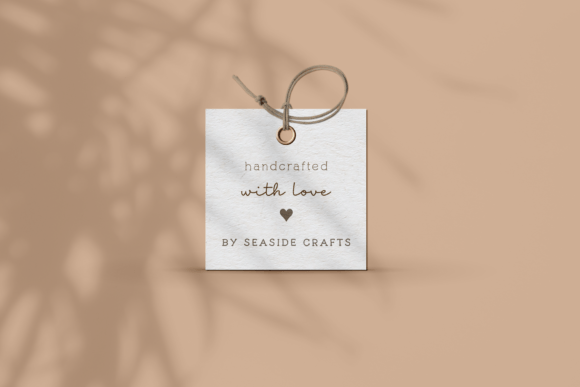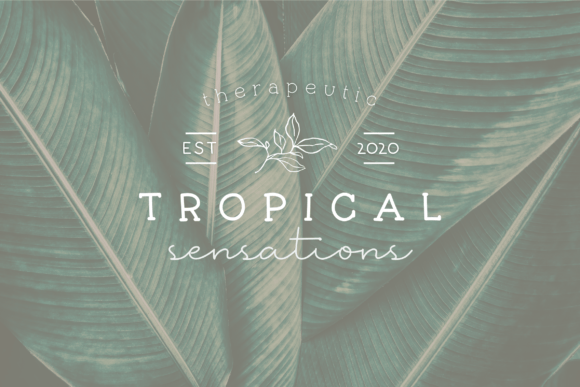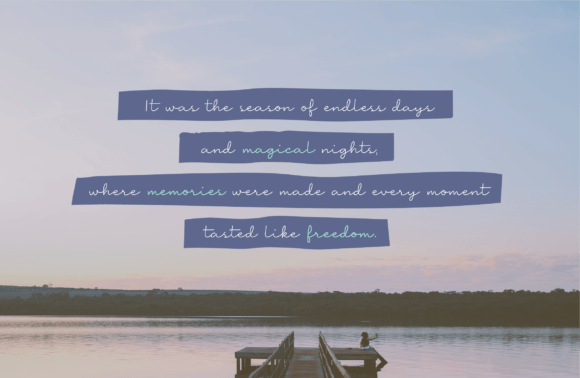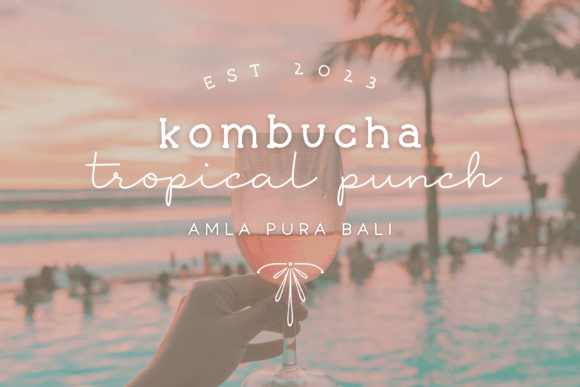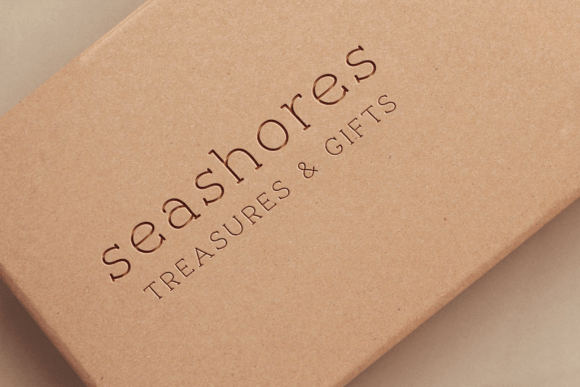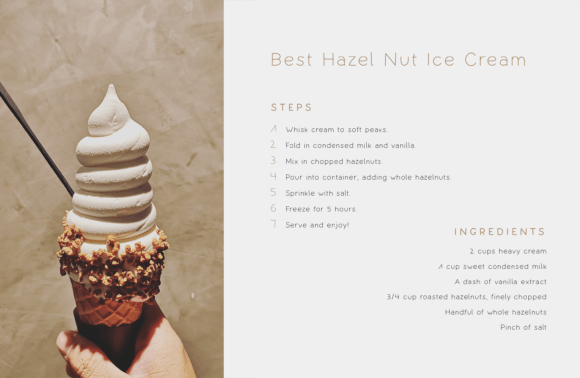
Introducing the ‘Beach Lovers Paradise’ Font Trio: Elevate Your Designs with Seaside Elegance
Are you a designer or crafter looking for a font that captures the essence of a beach lover’s paradise? Look no further! We’re excited to introduce the ‘Beach Lovers Paradise’ Font Trio, a versatile collection designed to bring a touch of seaside elegance to both digital and print projects. This trio offers distinct styles in both Regular and Bold weights, ensuring flexibility across various applications.
A Collection of Three Unique Fonts
The ‘Beach Lovers Paradise’ Font Trio consists of three unique fonts, each with its own character and charm. The collection includes:
- Seawashed: A clean and modern font with a subtle beachy feel, perfect for text-heavy designs and user interfaces.
- Beachy Keen: A fun and playful font with a carefree vibe, ideal for headlines and titles.
- Coastal Crush: A elegant and sophisticated font with a romantic feel, suitable for luxury brands and high-end designs.
Comprehensive Multilingual Support
In today’s global market, it’s essential to have a font that can communicate with a diverse audience. The ‘Beach Lovers Paradise’ Font Trio comes with comprehensive multilingual support, making it ideal for international projects. With support for multiple languages, you can use these fonts to create designs that resonate with people from different cultures and backgrounds.
Flexibility Across Various Applications
The ‘Beach Lovers Paradise’ Font Trio is designed to be versatile and flexible, making it suitable for a wide range of applications. Whether you’re working on a digital project, such as a website or mobile app, or a print project, like a brochure or poster, these fonts will deliver. The Regular and Bold weights ensure that you have the perfect font for your design, whether you need a subtle or statement-making look.
Seawashed: The Perfect Choice for Text-Heavy Designs
Seawashed, one of the fonts in the ‘Beach Lovers Paradise’ Font Trio, is a perfect choice for text-heavy designs and user interfaces. Its simplicity and clarity make it easy to read, even at small font sizes. The clean lines and modern feel of Seawashed ensure that your text-based designs will look sleek and professional.
Why Choose the ‘Beach Lovers Paradise’ Font Trio?
Here are just a few reasons why the ‘Beach Lovers Paradise’ Font Trio is a must-have for designers and crafters:
- Unique and eye-catching designs: Each font in the trio has its own distinct character, ensuring that your designs will stand out from the crowd.
- Versatility: The trio offers flexibility across various applications, making it suitable for a wide range of projects.
- Multilingual support: Communicate with a diverse audience using fonts that support multiple languages.
- High-quality design: The fonts are designed with precision and attention to detail, ensuring that your designs will look professional and polished.